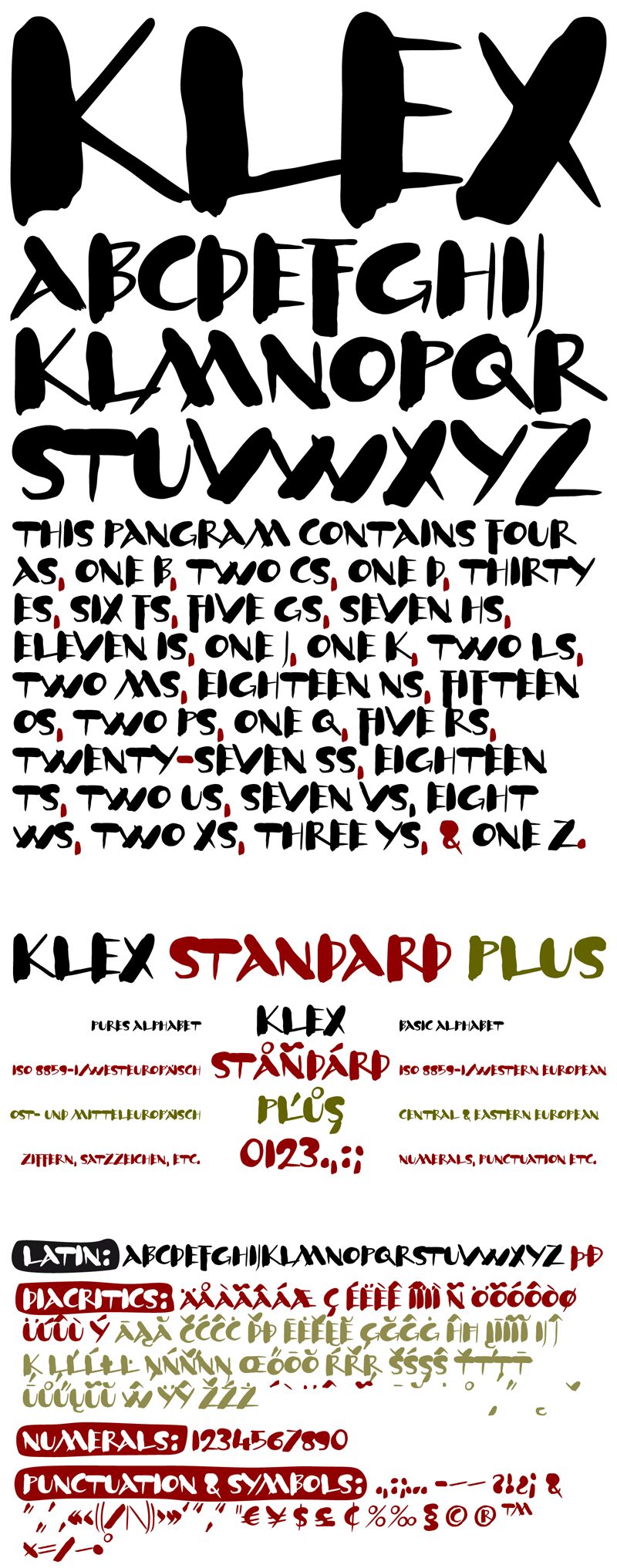
Klex is a bold brush font designed by ingoFonts, perfect for projects that require a touch of creativity and individuality. This typeface combines the edginess of a bold font with the fluidity of a brush stroke, making it ideal for designs that need to stand out from the crowd. Klex's unique style is perfect for branding, packaging, posters, and any project that requires a bold statement. Its thick lines and expressive curves create an organic feel that adds personality to your work. With Klex, you can add a touch of artistic flair to any project while being sure that your message will be conveyed with confidence and clarity.
A calligraphic alphabet in bold/light brushstrokes
Actually, a typeface like this one should be written with a wide brush; this one was written with a thick, pointed brush.
Thus were created the round or misshapen ends of the stems, and the sometimes excessively pointed ends of the hairlines. For each character of KLEX, the large brush was dipped in the ink anew. Using this method, the forms turned out very soft, in spite of their geometrical rigidity. The individual characters are heavy, simple, and monumental, so that they are also suitable as initials.